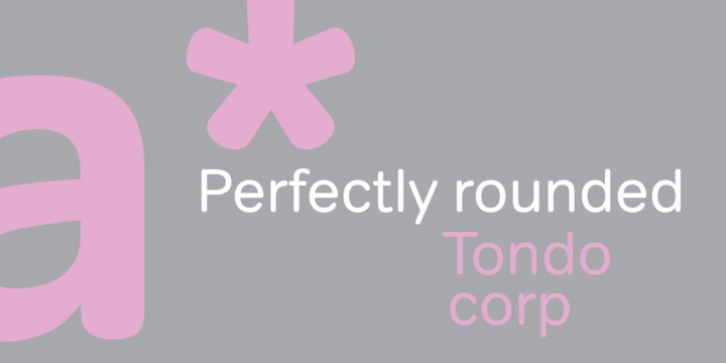
Tondo is a contemporary rounded sans serif font family which can easily fend off any of its competitors. The rounded ends of Tondo’s strokes are slightly flattened. This approach to rounding helps the font to appear more stable and less fuzzy, particularly when set at smaller sizes. The drawing of the characters is precise and clean without appearing mechanical. When set, Tondo will create an even and harmonious texture that does not aim to compete with other design elements, but supports the brand with a subtle voice.